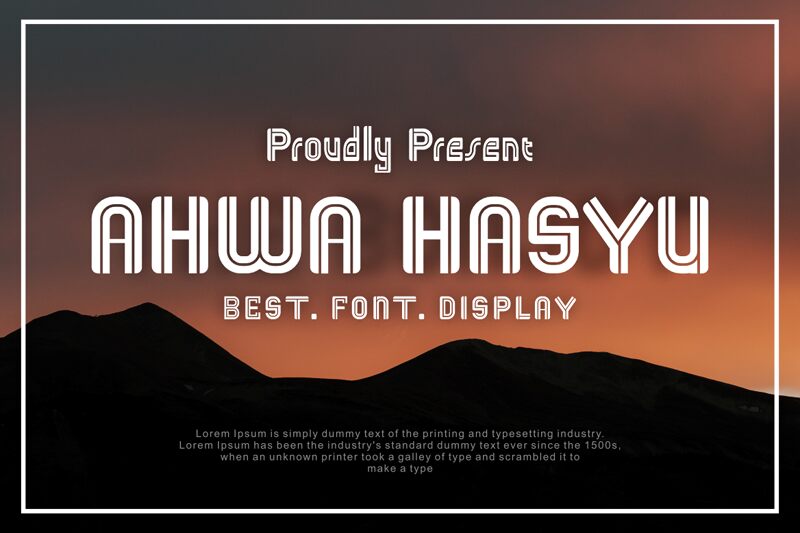
Ahwa Hasyu font by Gilang Ternadho is a structured and geometric display font. Tech-inspired and bold, it shows a futuristic style reminiscent of video game designs. All characters showcase distinctive angles that will bring dynamism to your branding projects.
Use this free display font in the titles of magazines, newspapers, company brochures, or business cards. It is an excellent fit for logos and product labels related to technology, musical instruments, video art equipment, software development companies, start-ups or apps. Unleash your creativity with this modern and captivating alphabet!